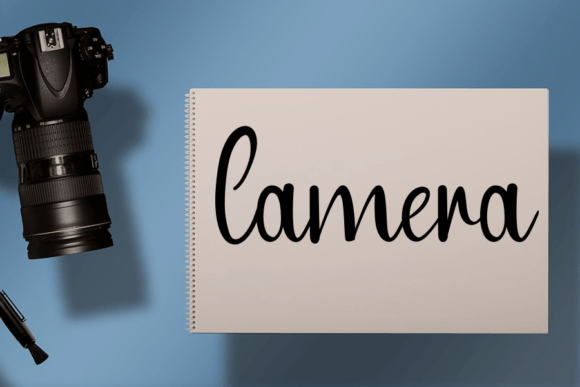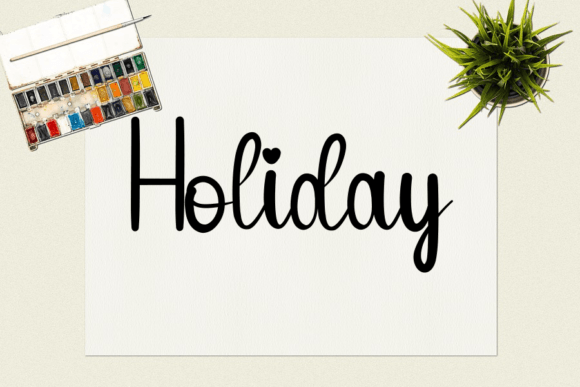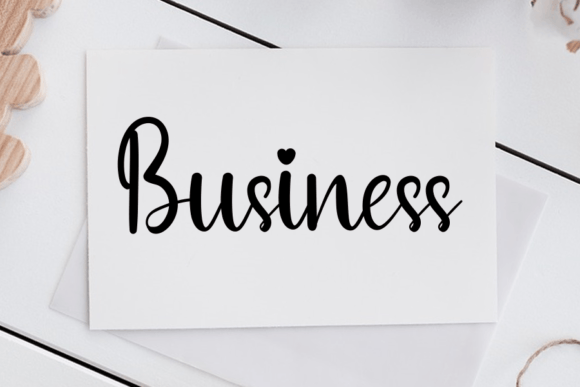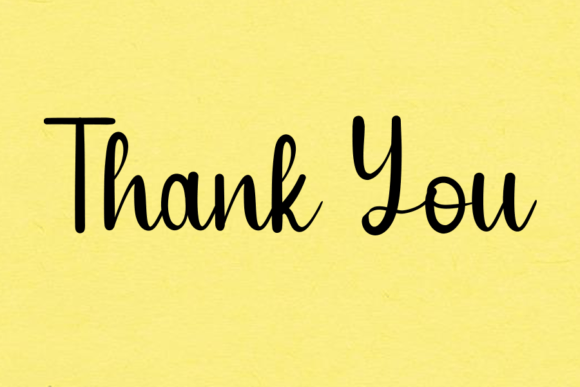
Overthingking Font
About Overthingking Font
“Overthinking” is not just a font; it’s a typeface with connecting hearts, adding a unique and romantic touch to your projects. Tailored for initials and display projects, such as magazines and crafts, this font is an ideal choice for bringing a personalized and romantic vibe to your designs.
The connecting hearts in “Overthinking” make it particularly well-suited for projects that require a romantic and charming aesthetic. Imagine this font gracing wedding invitations, where the connecting hearts convey a sense of love and unity, creating a perfect fit for such special occasions.
For cards and other design projects that demand a personalized touch, “Overthinking” stands out as a font that adds a romantic flair. The unique feature of connecting hearts elevates the emotional appeal, making it suitable for expressing sentiments in a visually captivating way.
In display projects like magazines and crafts, “Overthinking” becomes a standout element that catches the eye and adds a touch of creativity. The hearts connecting the letters create a distinctive and charming visual impact, making your display projects more engaging and memorable.
Whether you’re working on branding, social media posts, or any other creative endeavor, “Overthinking” serves as a font that brings a romantic and personalized touch. Its unique design makes it a valuable asset for expressing emotions and creating designs that leave a lasting impression.
In essence, “Overthinking” is more than just a font; it’s a design tool that adds romance and creativity to your projects. Let “Overthinking” be the typeface that enhances your initials and display projects, making them stand out with a charming and heartfelt allure.